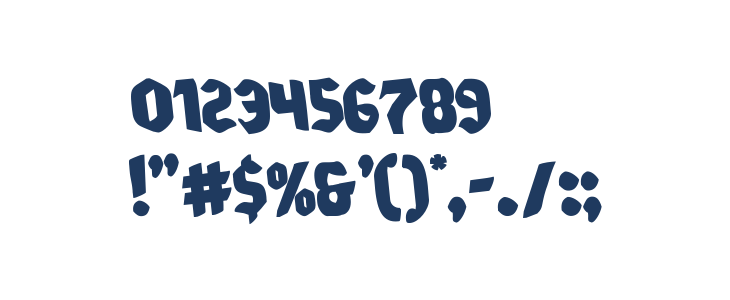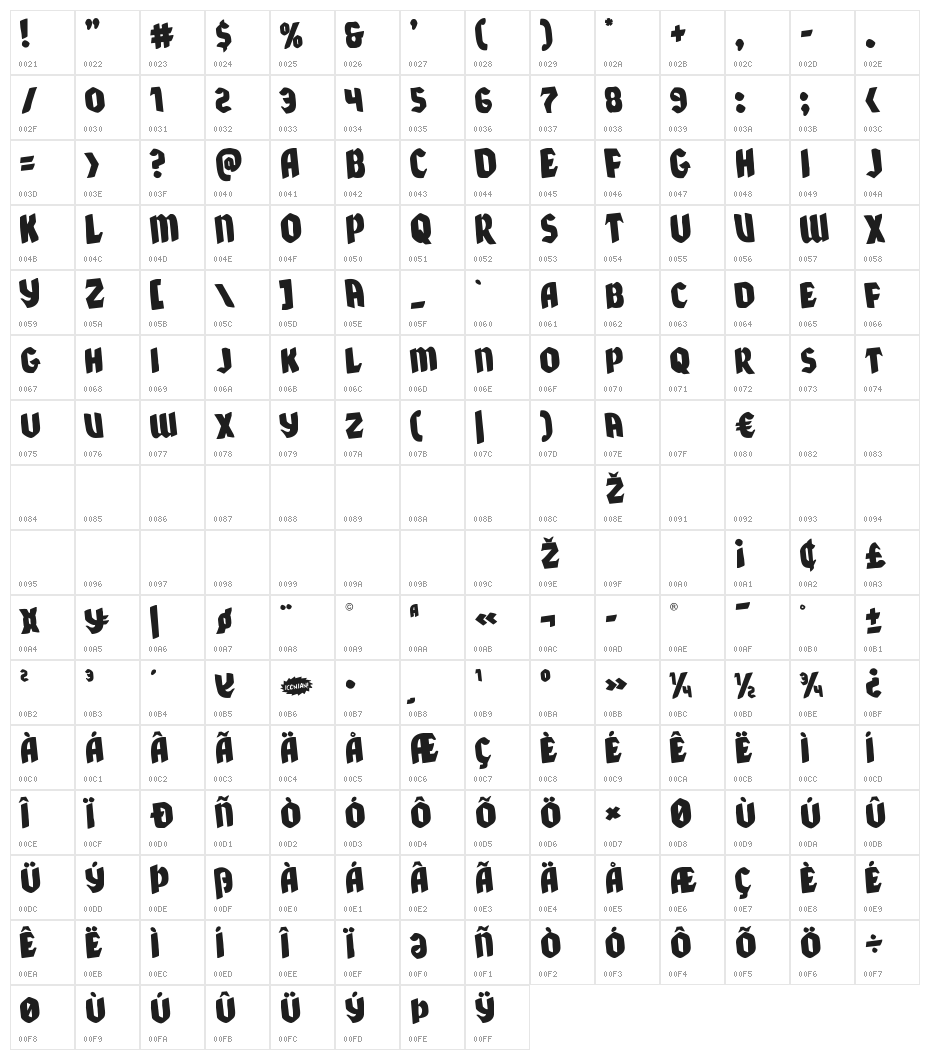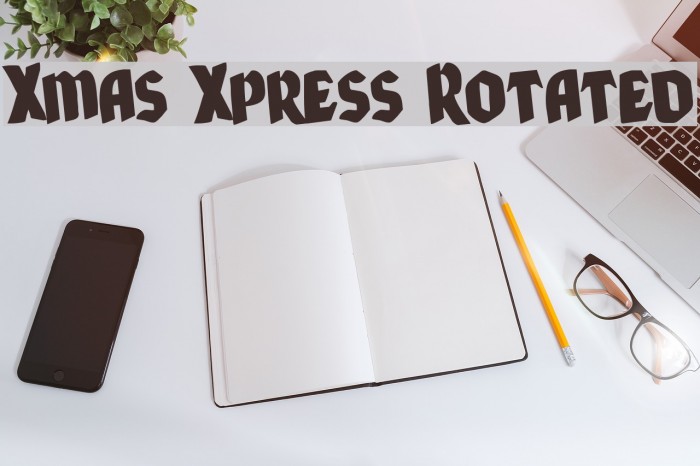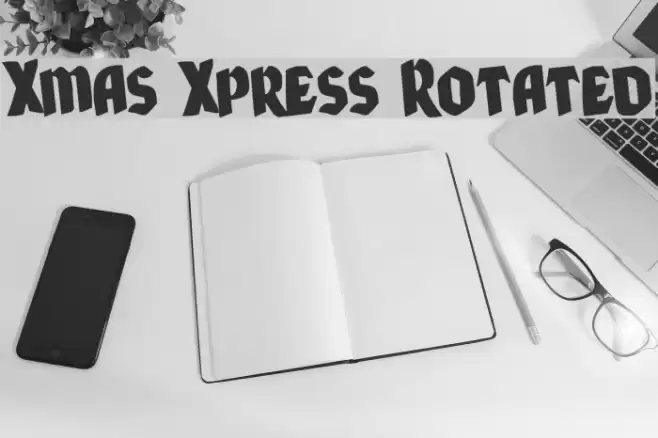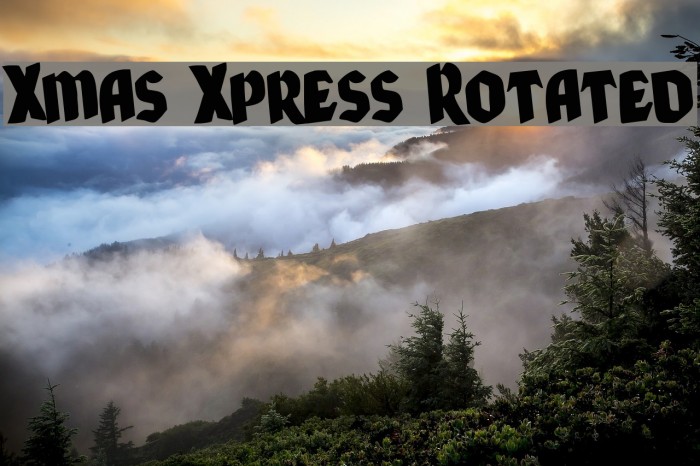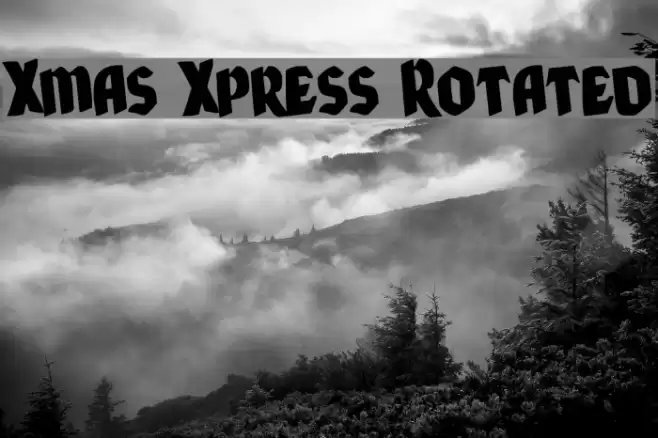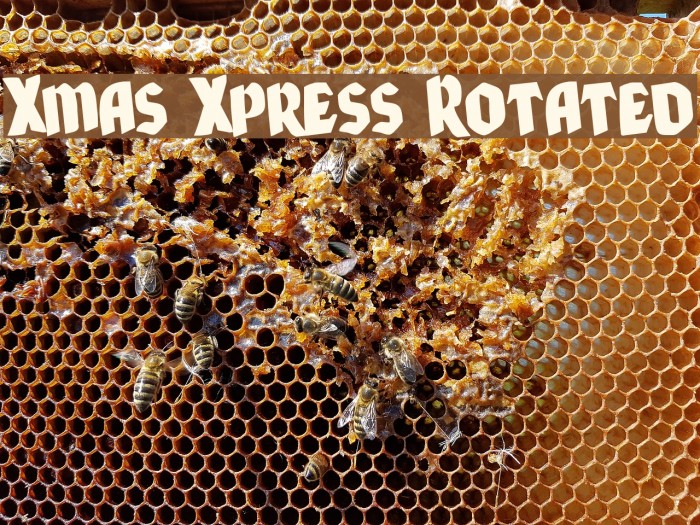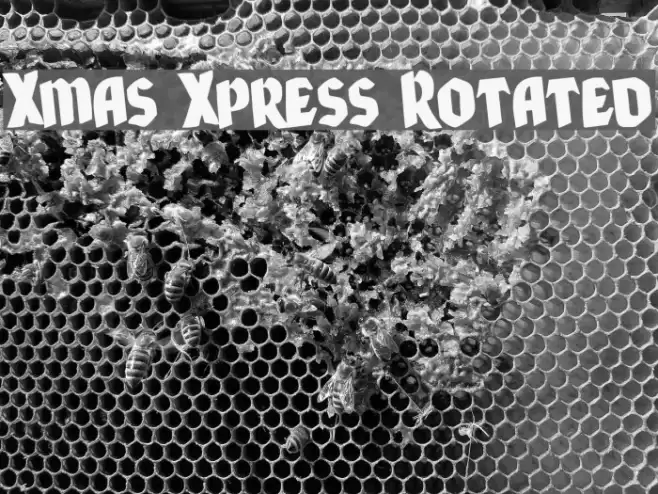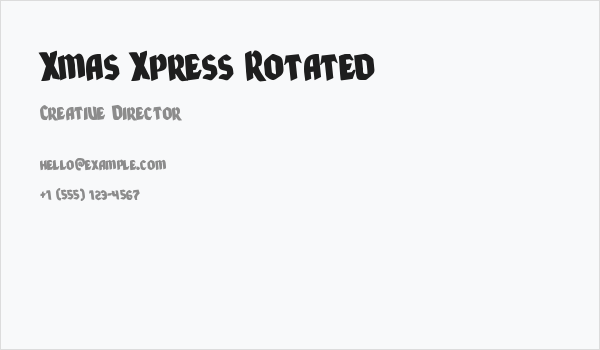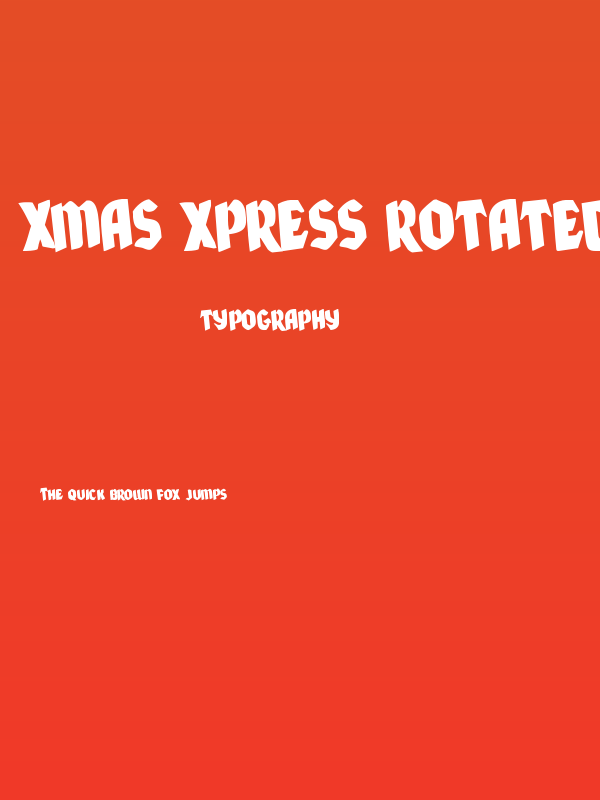
Xmas Xpress Rotated Font
Xmas Xpress Rotated Description
This font features a bold and playful style with a distinctively chunky and irregular form. The characters are slightly tilted, giving them a dynamic and energetic appearance. The strokes are thick and consistent, creating a strong visual impact. The overall design is reminiscent of festive or holiday themes, making it suitable for cheerful and lively projects. The uppercase and lowercase letters maintain a cohesive look, while the numbers and special characters are crafted to match the font's whimsical nature.
| Overall Style | Playful, Festive |
| Use Case | Headlines, Posters, Cards |
| Proposed Projects | Perfect for holiday cards, festive banners, playful posters, and children's book covers. |